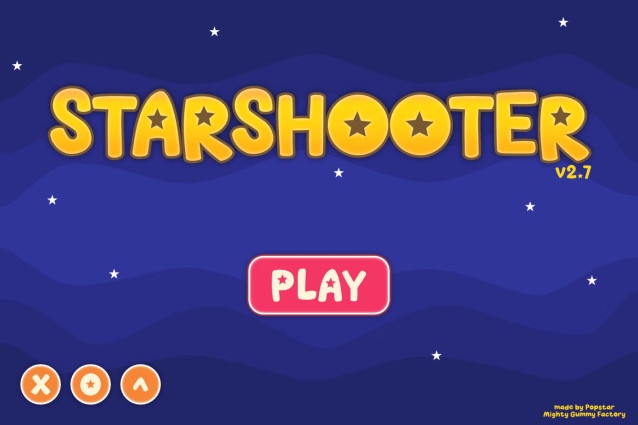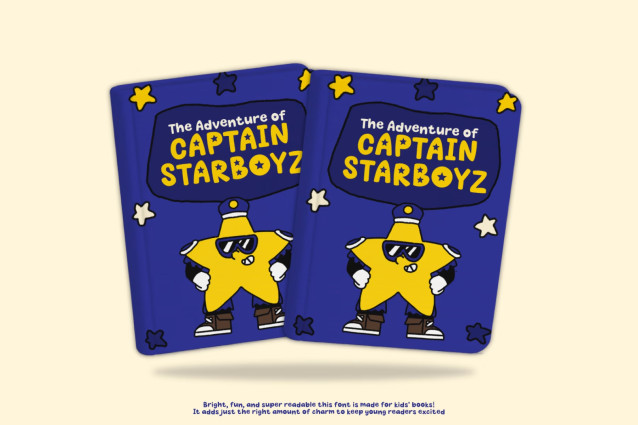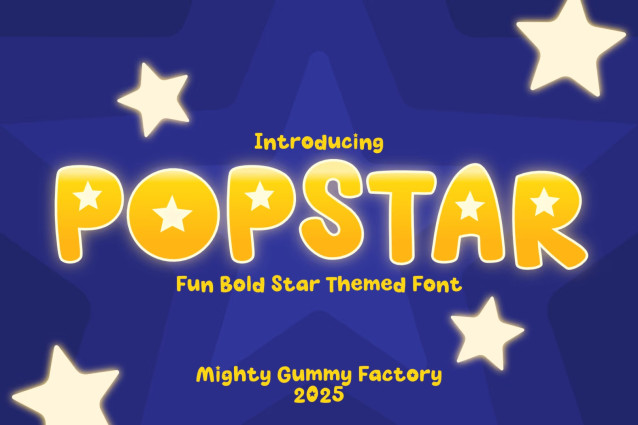
MGF Popstar Font
MGF Popstar Font a bright and bouncy display font that’s ready to shine in your next creative project! With star-shaped accents inside every letter and playful, chunky curves, this font is the perfect choice for anything that needs a joyful, youthful vibe. Whether you’re designing for kids, creating bold YouTube thumbnails, crafting playful packaging, or adding some magic to your social posts—POPSTAR is your go-to for eye-catching, high-energy designs.